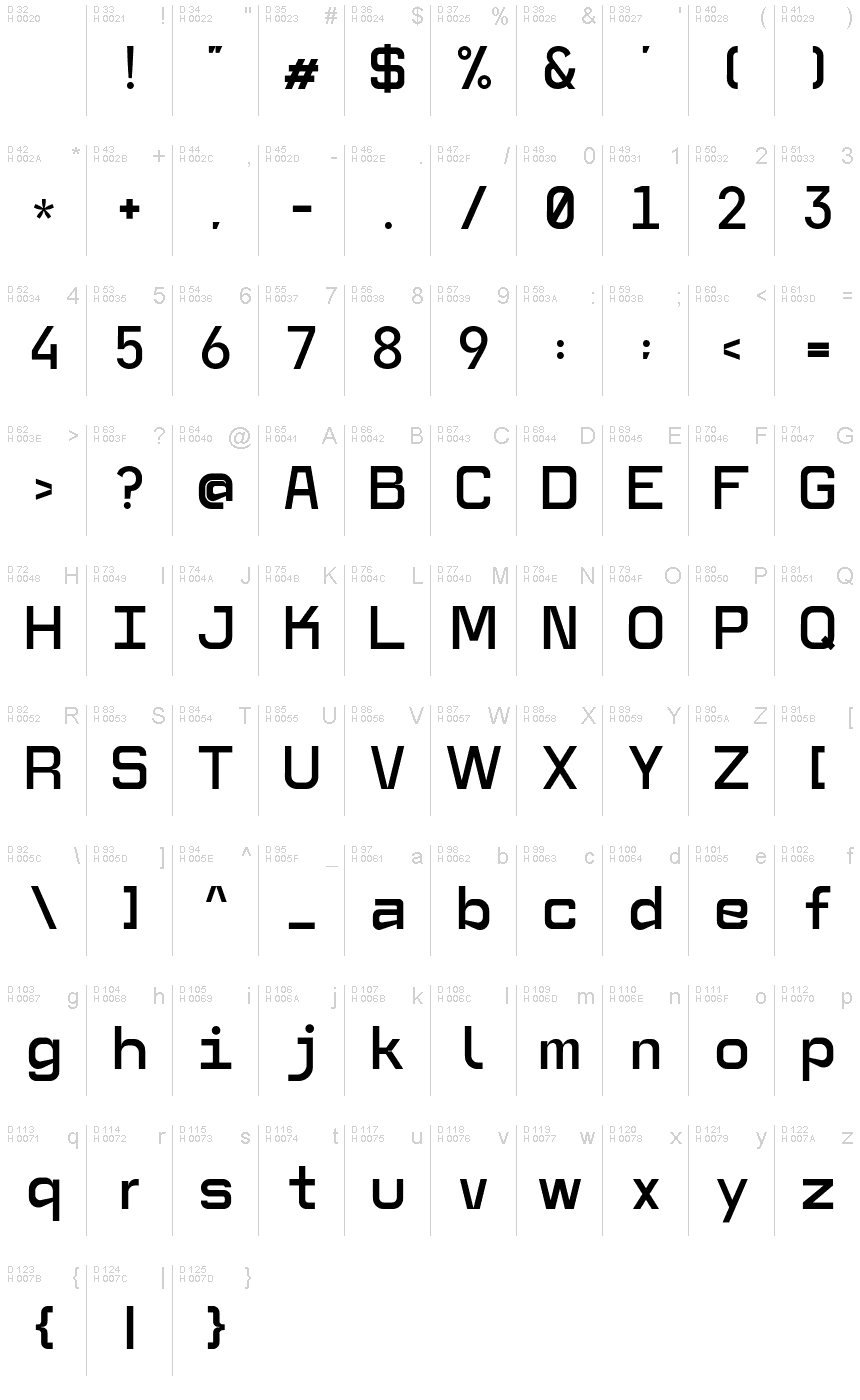
Monoir
Monoir is a futuristic display font designed by Noirthetic. Its wide letters and stylish curves give it an air of sophistication, perfect for modern projects like magazine covers, flyers and logos. Its bold lines make it stand out from the crowd and add a unique touch to any design. Monoir is the ideal choice for creating eye-catching titles, headlines or posters that will grab attention.